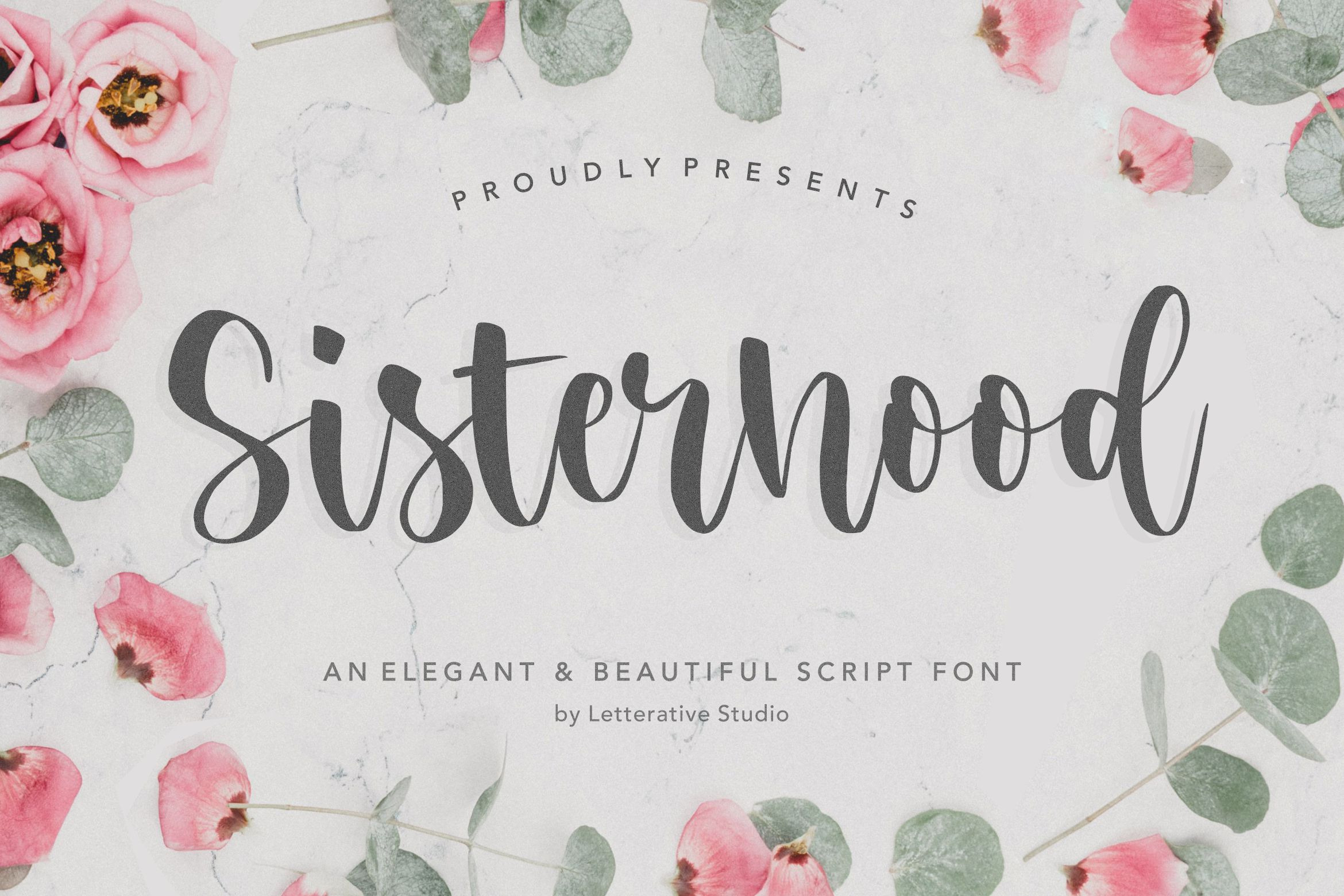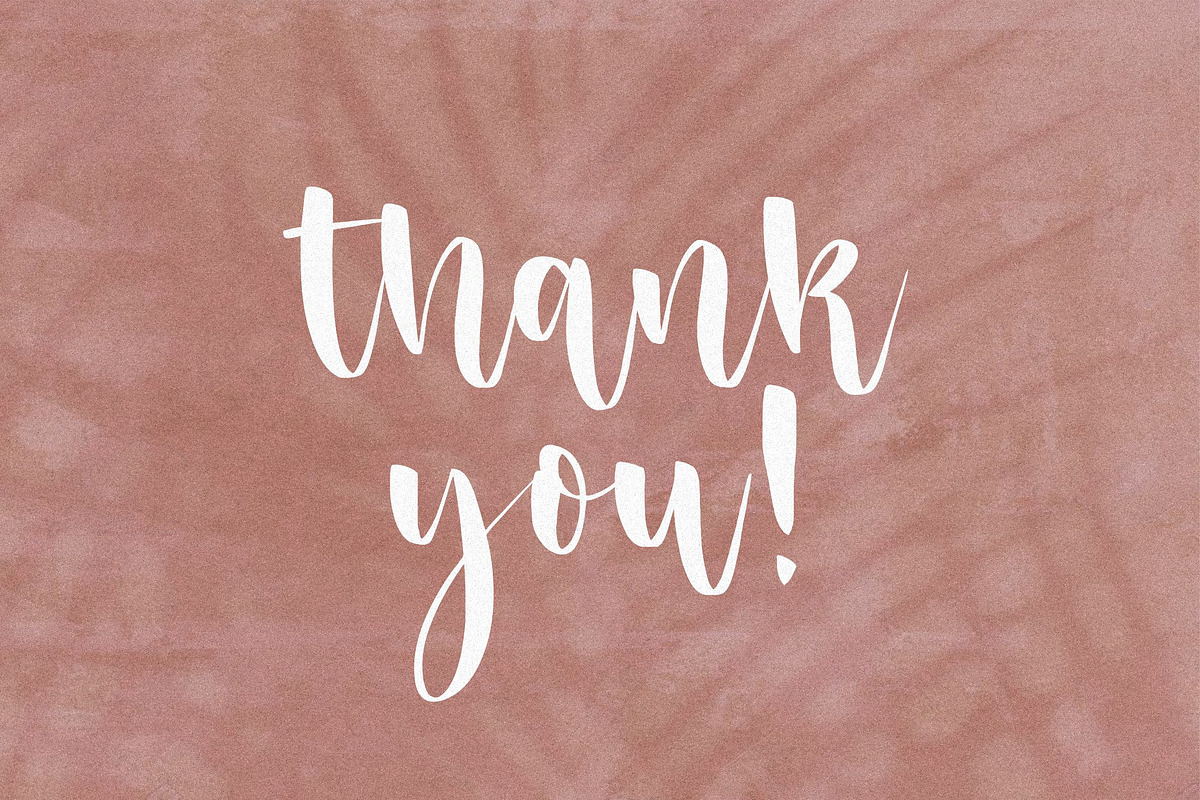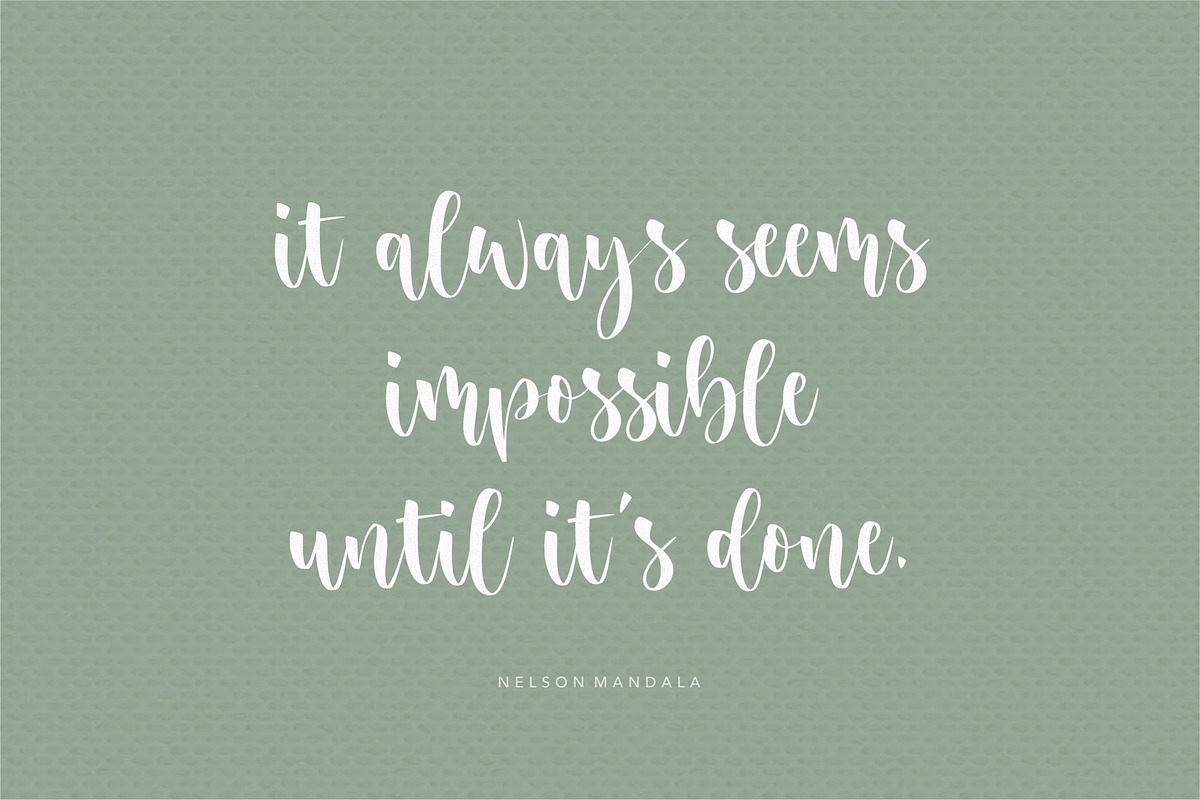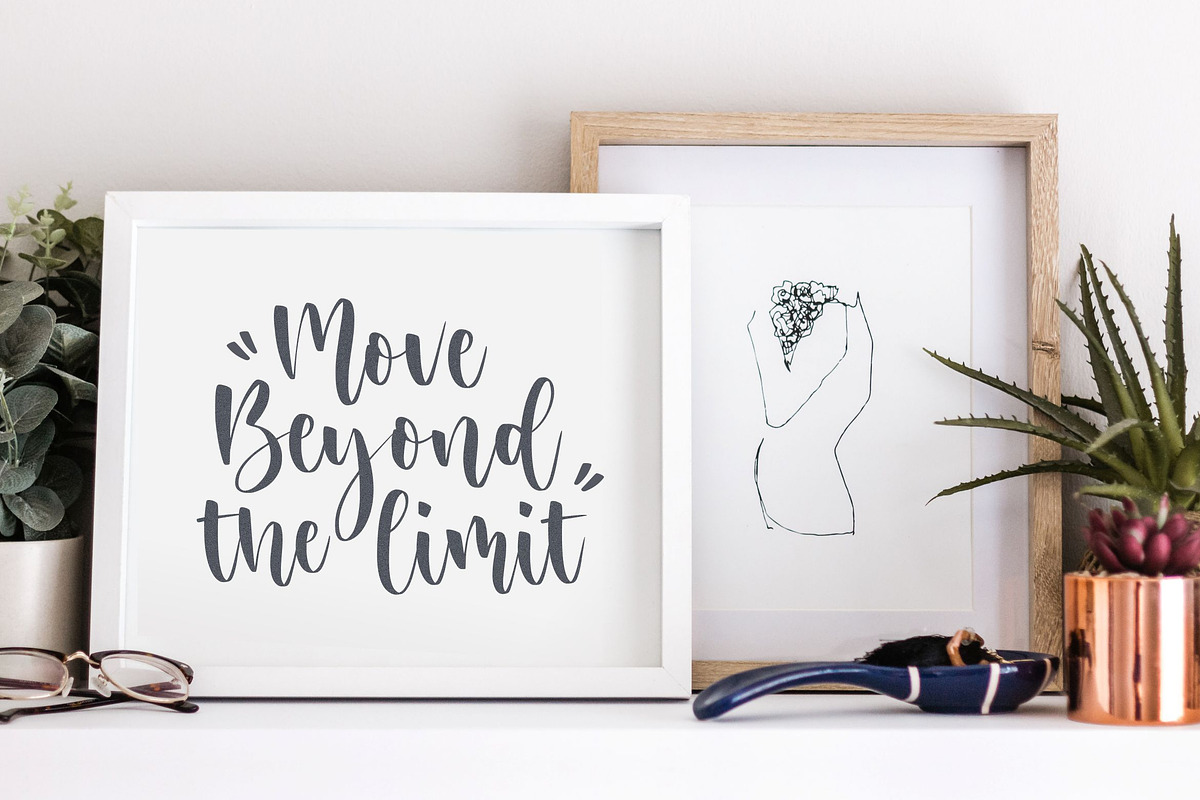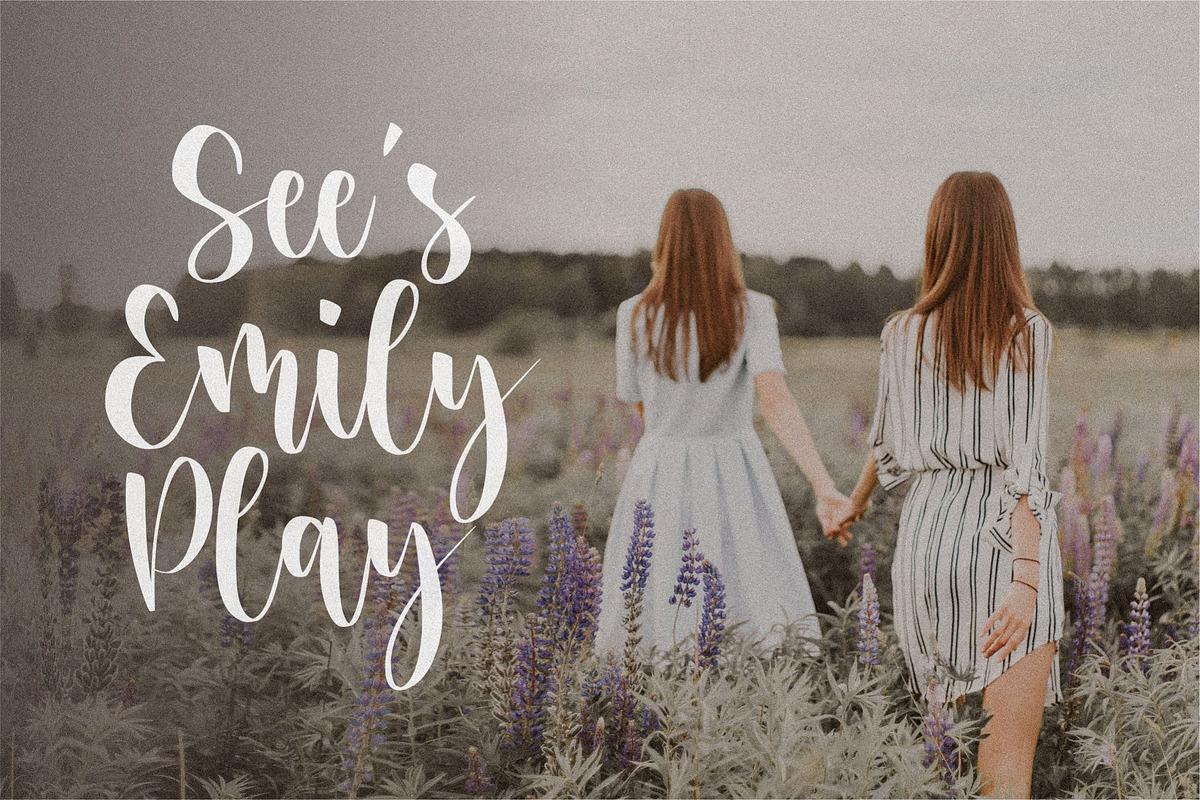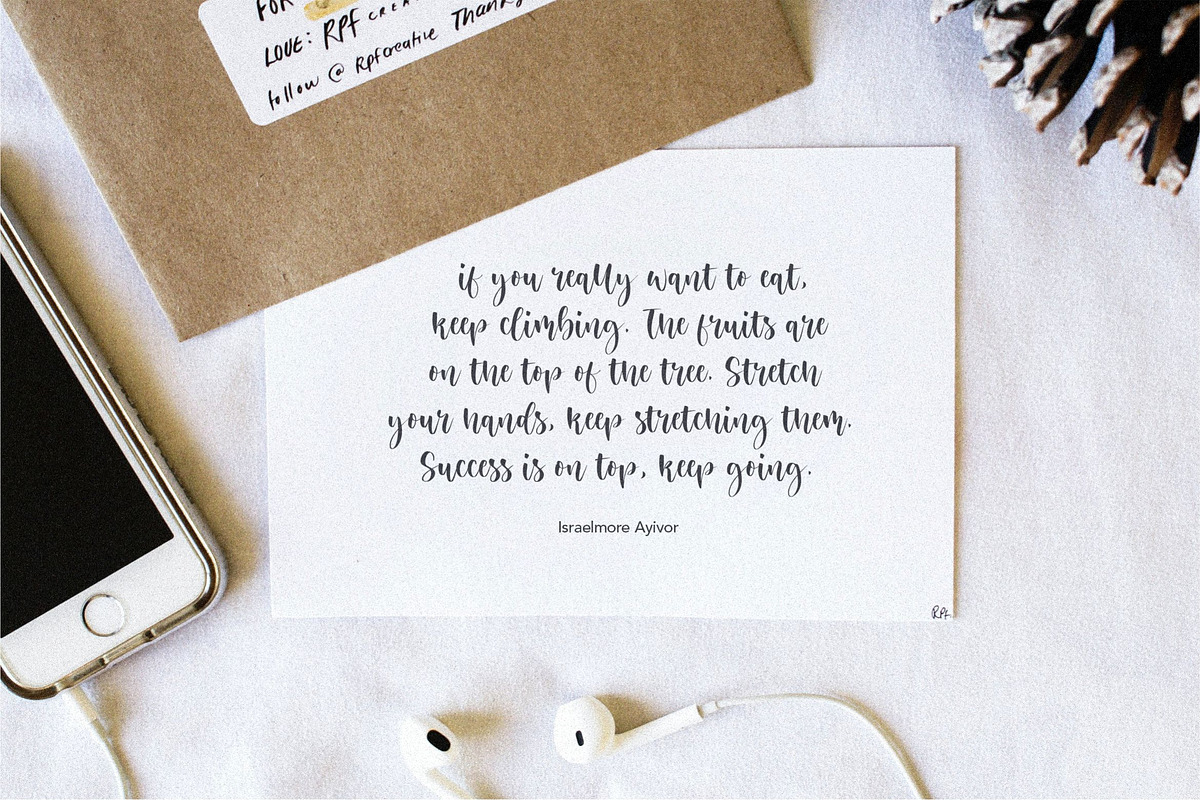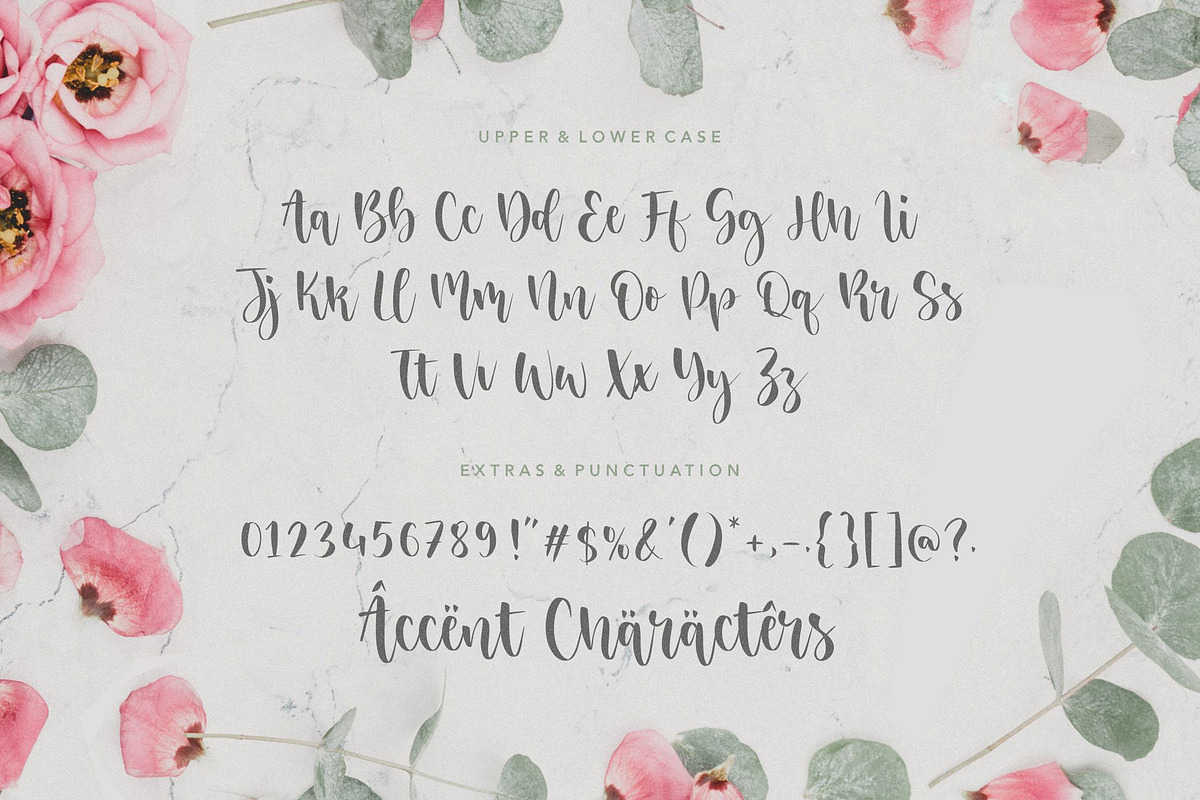
Sisterhood - Beautiful Script Font
Introducing by Letterative Studio
Sisterhood is an Elegant & Beautiful Script Font
Sisterhood is an elegant and beautiful handwritten font. Use it for any design projects that require a charming appearance!